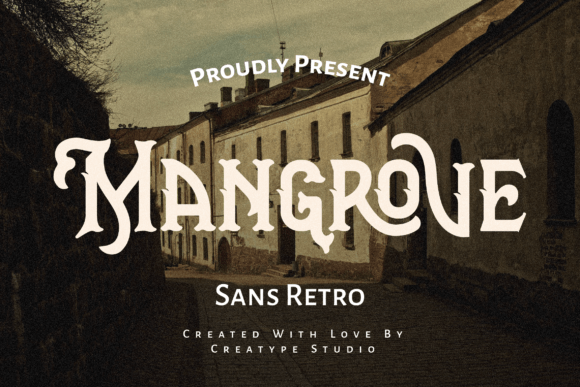
Unleash the Untamed Spirit of Vintage with Mangrove Font: A Timeless Typeface for Bold Designs
Journey through the annals of time and discover Mangrove Font, a vintage, masculine, and mysterious typeface that will transport your designs to an era of captivating allure. With its bold strokes and daring curves, Mangrove will infuse your creations with a timeless elegance that speaks to the soul.
Embark on a voyage of visual storytelling as you witness Mangrove transform your branding projects, logos, and wedding designs into masterpieces of yesteryear. Allow Mangrove's charm to captivate your audience on social media, advertisements, and product packaging, leaving an indelible mark of sophistication and distinction.
Picture the allure of Mangrove's presence on your product designs, labels, photography, and watermarks, adding a touch of nostalgia and intrigue that beckons the viewer to explore the depths of your artistry. Envision the elegance of Mangrove gracing invitations and stationery, evoking a sense of timeless romance and grace.
Mangrove is the font that breathes life into your creative endeavors, empowering you to weave tales of intrigue, adventure, and timeless allure. Download Mangrove Font today, and embark on a journey where vintage charm meets modern elegance. Unleash the untamed spirit within your designs and let Mangrove guide you to typographic greatness.